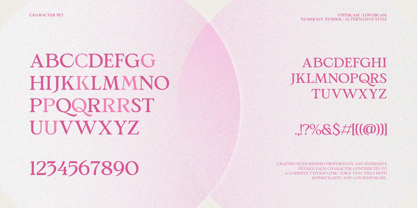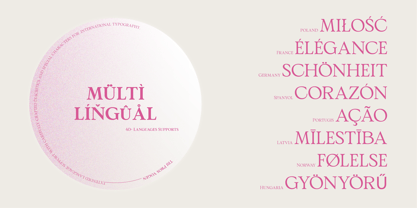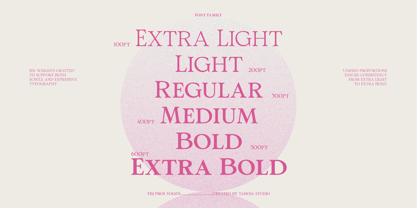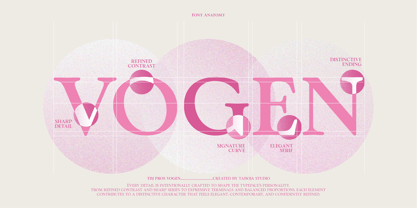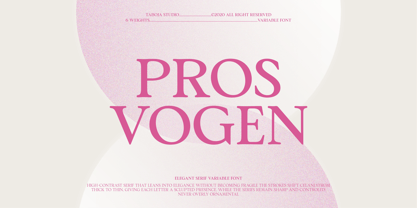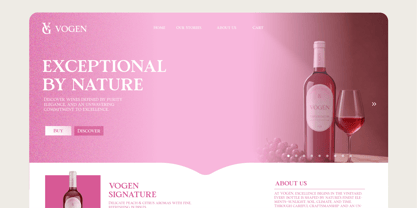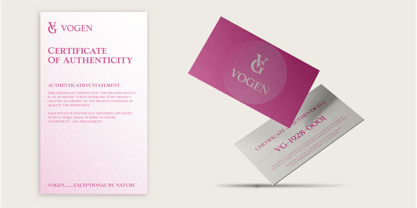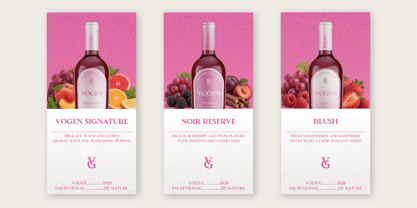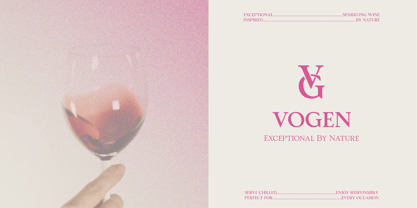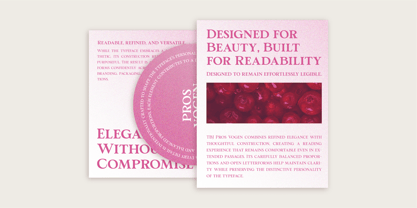
TBJ Pros Vogen
by Taboja Studio
The TBJ Pros Vogen Font Family was designed by Yusilo Oktaprima Ardani and published by Taboja Studio. TBJ Pros Vogen contains 6 styles and family package options. More about this family
TBJ Pros Vogen is a modern serif typeface built on classic didone structure, cut for the extreme contrast that premium and editorial design ask for. Its thick stems and hairline strokes sit against a fully vertical axis, giving every curved letterform a static, deliberate precision rather than a humanist lean.
That contrast carries into the detail work. The Q takes a long wave tail past the baseline, the R and K legs curve outward with real movement, and the J closes on a firm ball terminal, giving the capitals a controlled sense of flourish instead of decoration for its own sake. The figures follow the same logic, with sharp expressive curves on 2, 3, 5, and 7 that echo the capitals' character. Stylistic sets, discretionary ligatures, and stylistic alternates extend that same flexibility across full compositions.
Pros Vogen is built for fashion logos, luxury packaging, editorial headlines, and exclusive invitations, where its hairlines read as intention rather than risk. It's not built for small body text, where those same hairlines are the first thing to degrade at low resolution.
At TBJ, we design serif typefaces that hold their contrast with intent, built for identities that don't need to raise their voice to be noticed.
Designers: Yusilo Oktaprima Ardani
Foundry: Taboja Studio